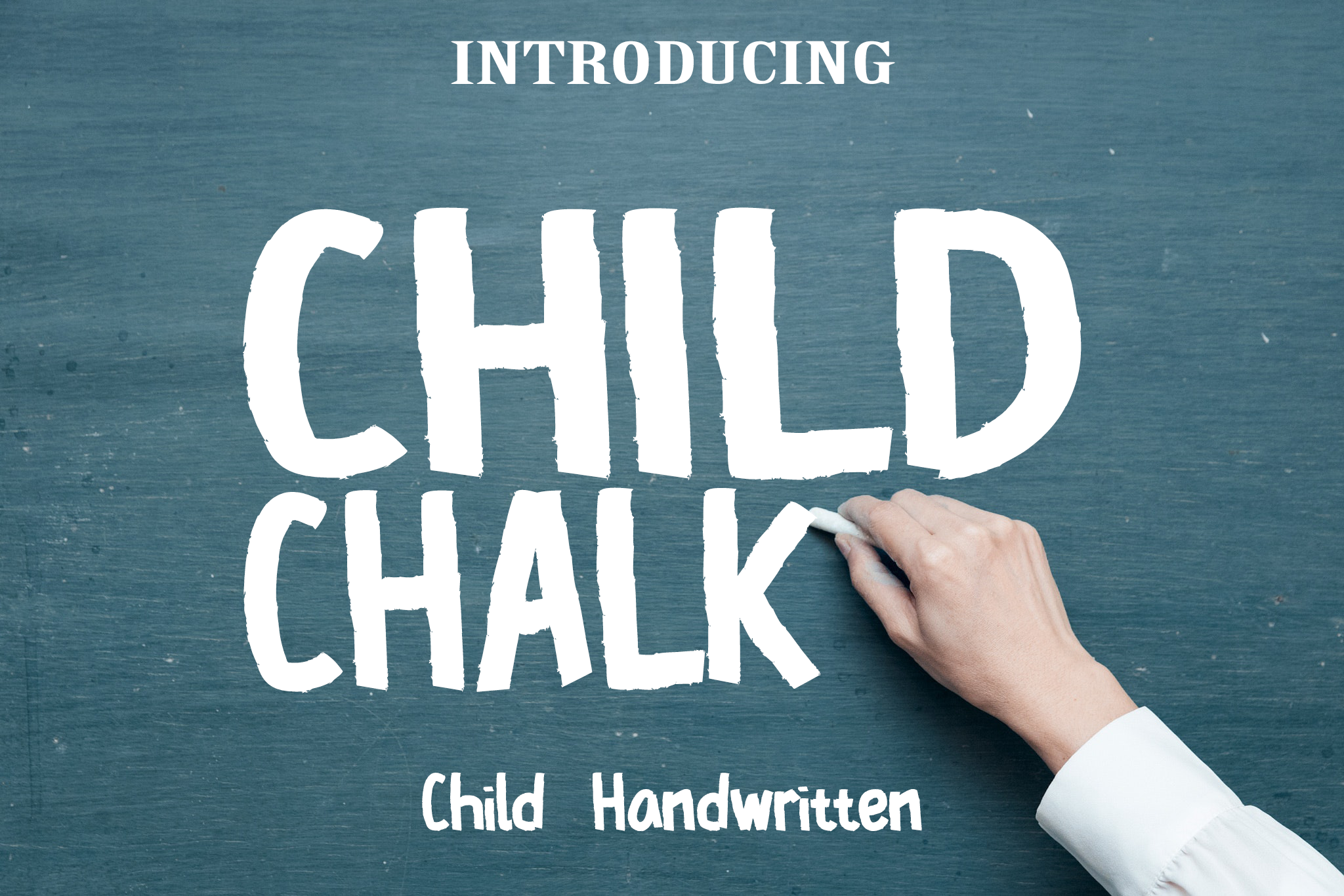
HomeScript FontsChild Chalk Font Script Fonts Child Chalk Font FacebookXPinterestWhatsApp Child Chalk Font Poster 2 Child Chalk Font Poster 3 Child Chalk Font Poster 4 Child Chalk Font Poster 5 Child Chalk Font Poster 6 Child Chalk Font Poster 7 About Child Chalk Font The Child Chalk typeface is a unique font. The foundation of this font is a child writing on a chalk board. DOWNLOAD ON CREATIVE FABRICAThis font is sold and delivered by Creative Fabrica. Font Canyon may earn a commission if you buy through this link. People also explored Melba Foster Font Hexer – Modern Slab Serif Font Falinlove Font Story Font Canhiya Font Orange Juicy Font Yellow Duck Font Threadcount Font Webster 449 0 TagsChild Chalk Font Previous articleThe Stylistic Sign FontNext articleBeatific Margella Font LEAVE A REPLY Cancel reply Comment: Please enter your comment! Name:* Please enter your name here Email:* You have entered an incorrect email address! Please enter your email address here Website: Save my name, email, and website in this browser for the next time I comment. Personal Use Free BD Spinner Personal Use Free Read more about this font Nuku Nuku Personal Use Free Read more about this font Indonesia Dermawan Personal Use Free Read more about this font Houstonville Personal Use Free Read more about this font BLOG Top 7 Google Fonts Alternatives for Faster and Privacy-Friendly Web Design (2025) Top 7 Google Fonts Alternatives for Faster and Privacy-Friendly Web Design (2025) When it comes to web typography, Google Fonts has long been the go-to... The 10 Best Handwriting Fonts to Add Personality to Your Designs Using Fonts in Digital Marketing: Tips to Strengthen Your Brand Identity Fonts That Capture the Spirit of New York City